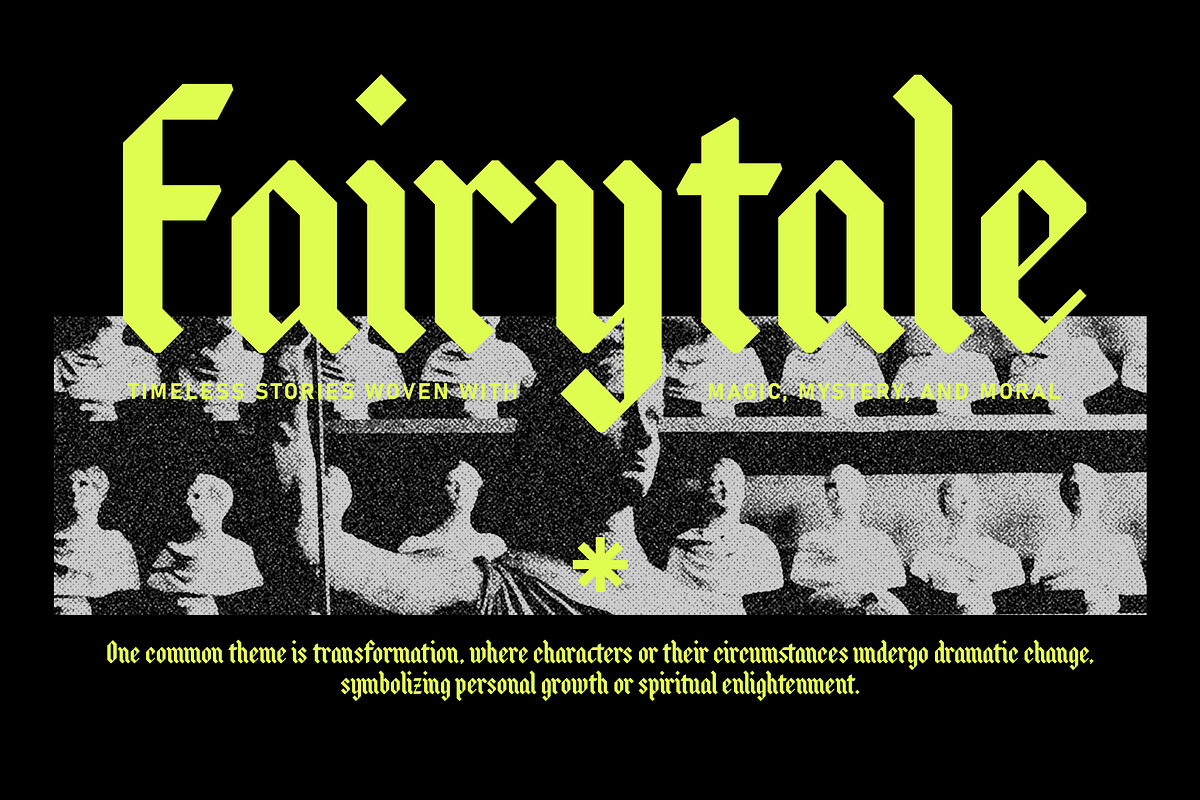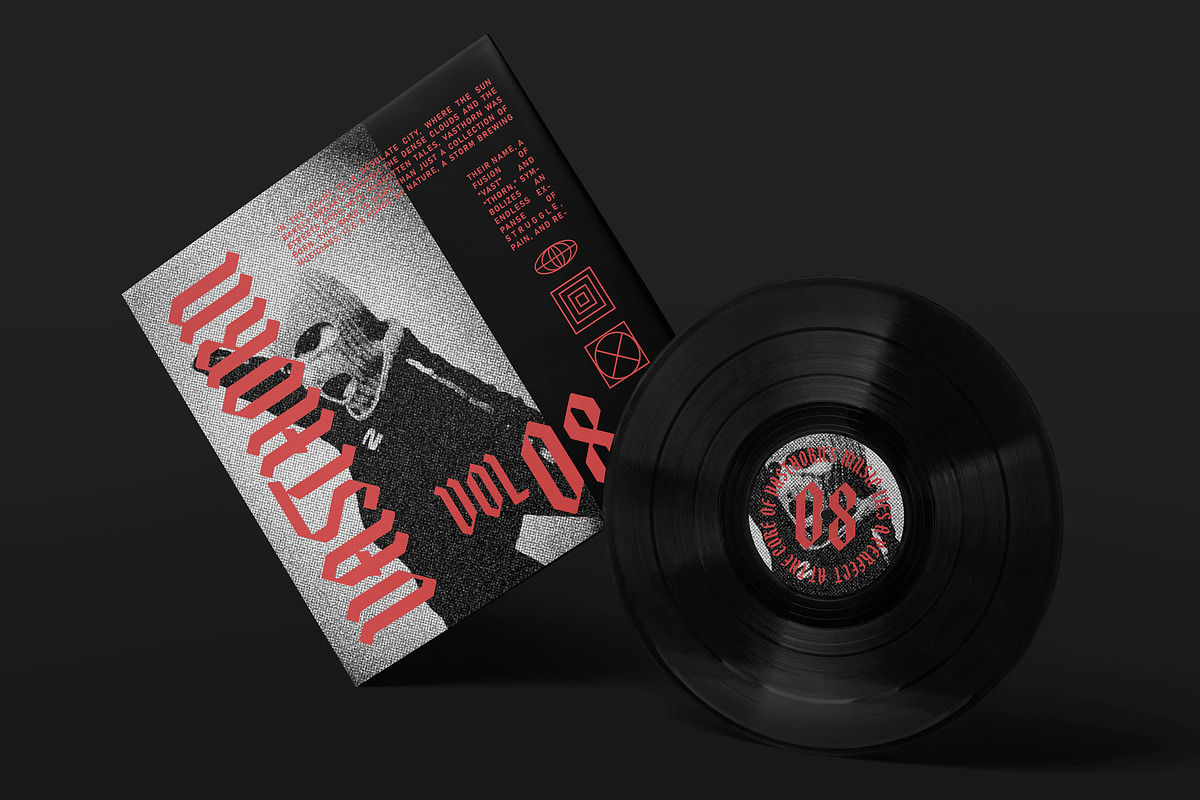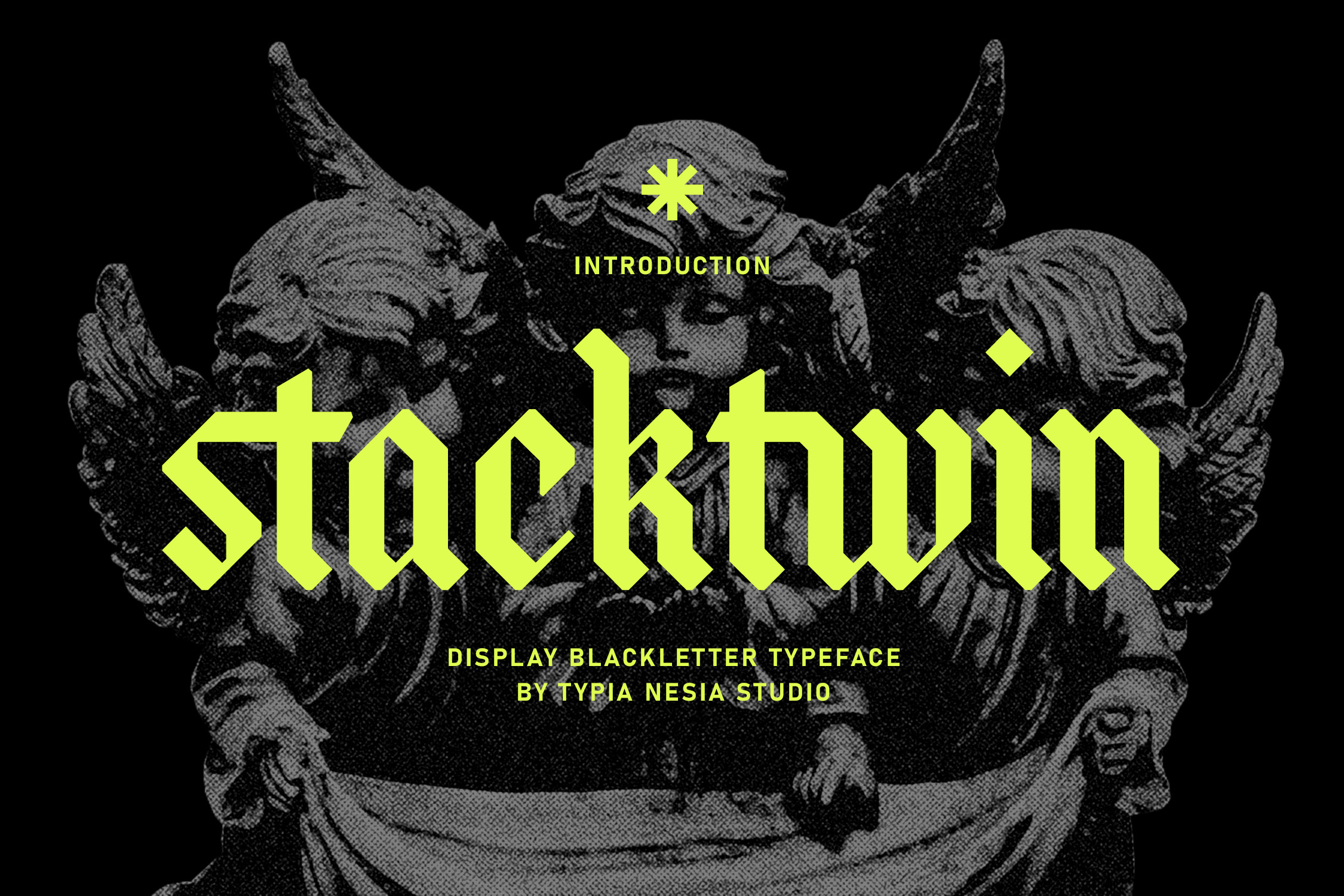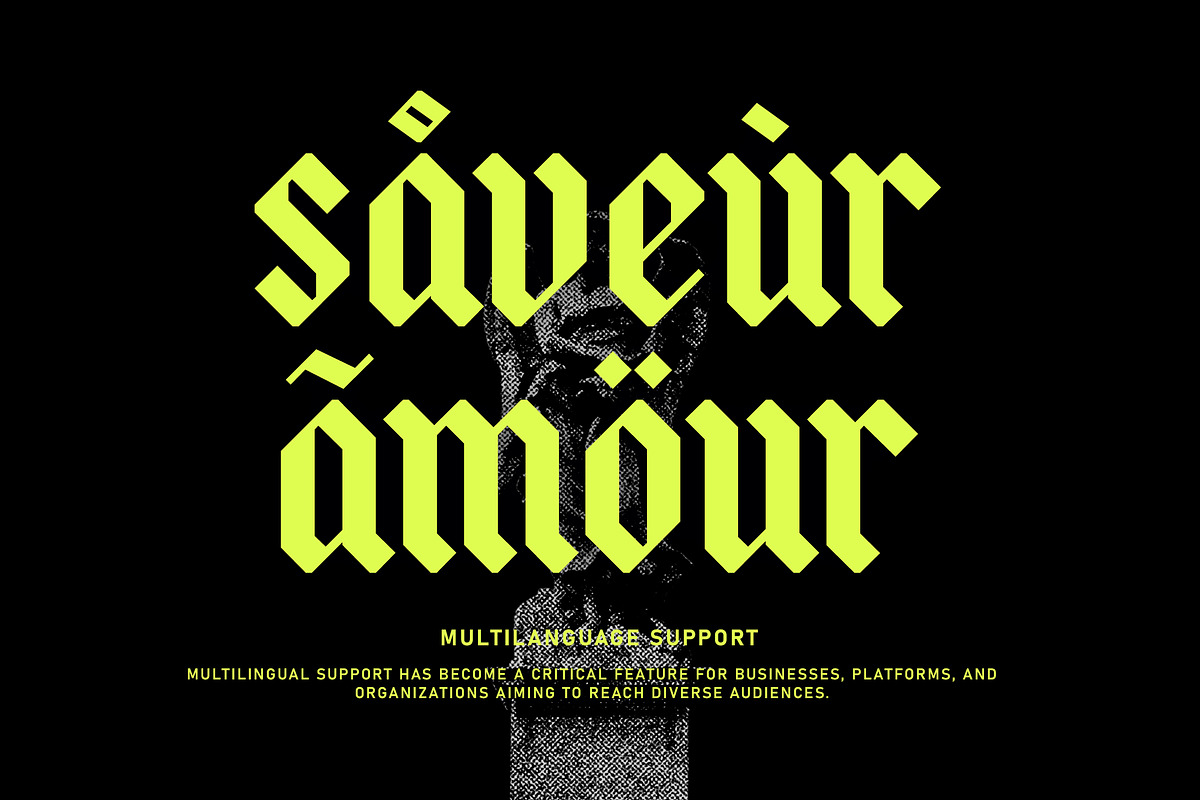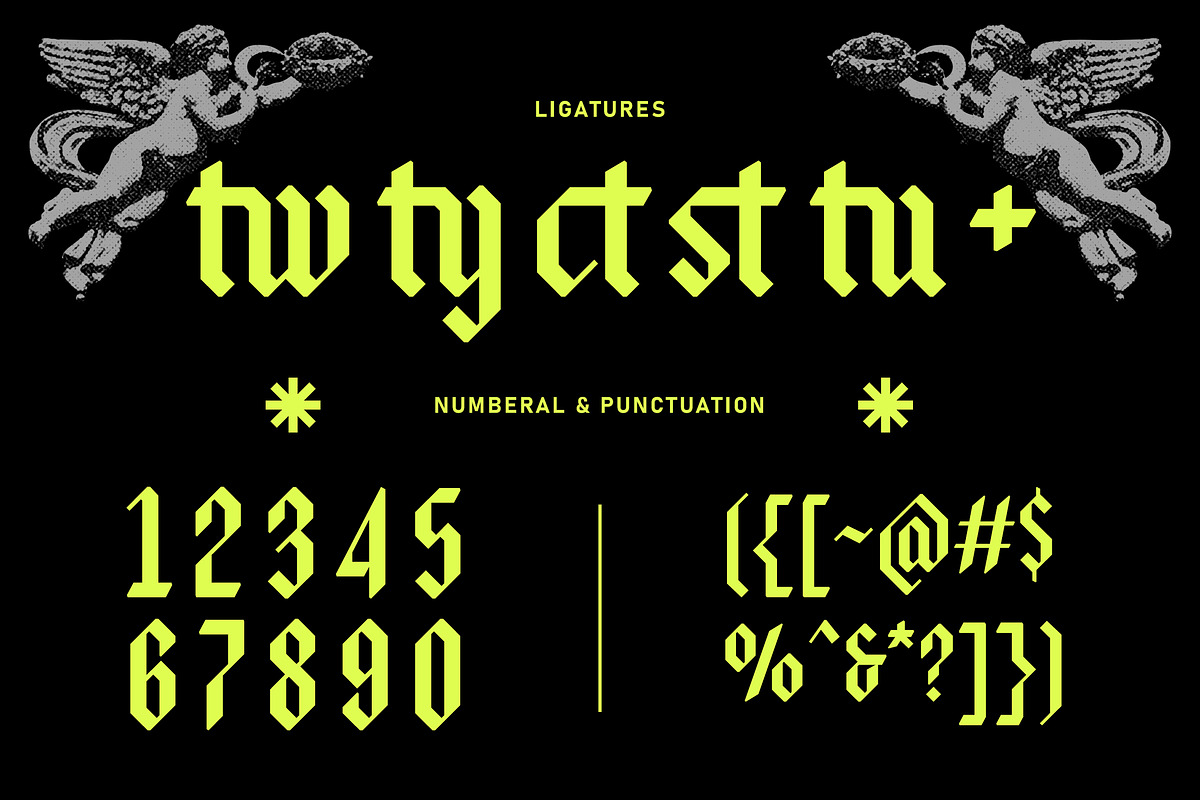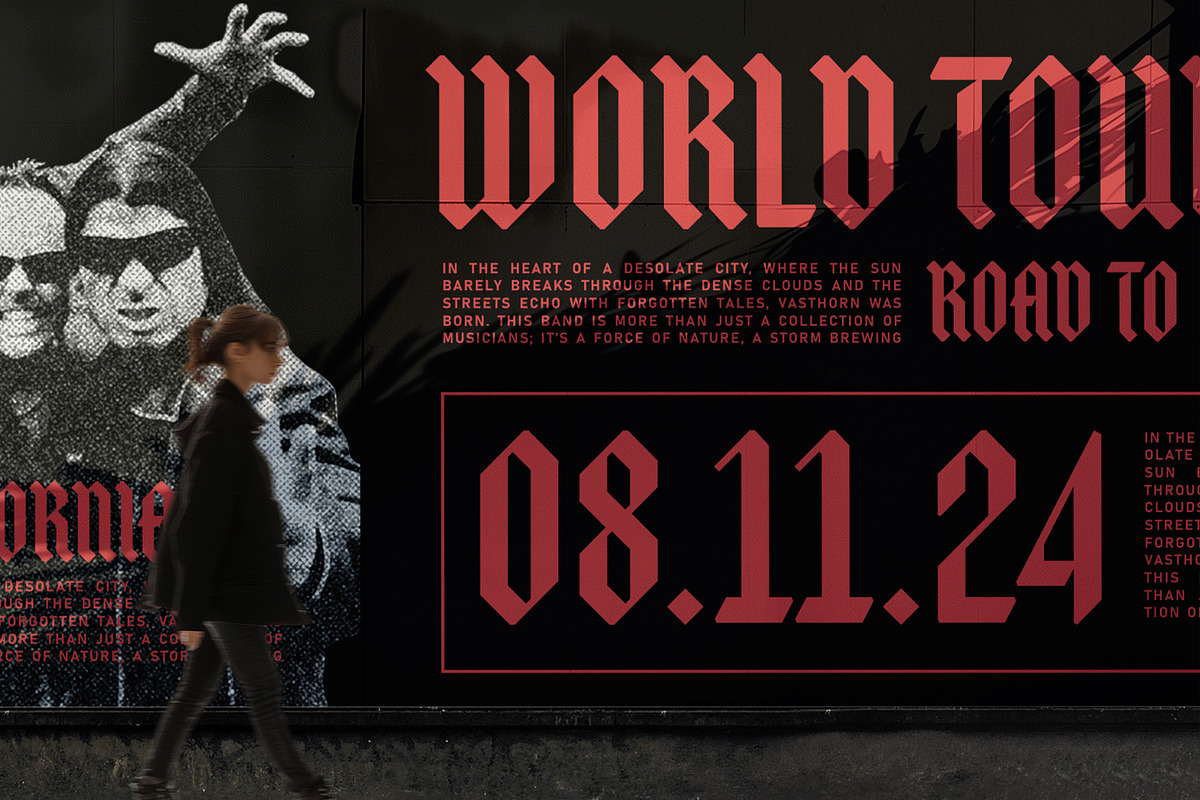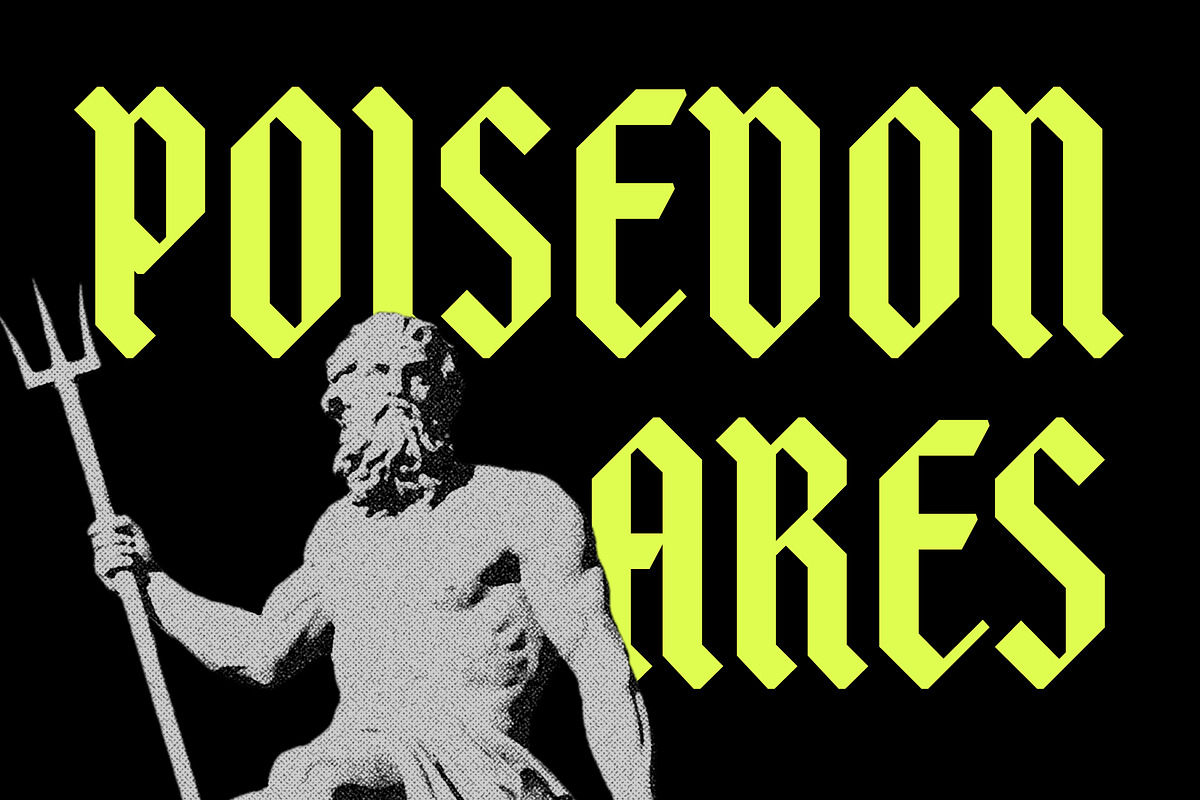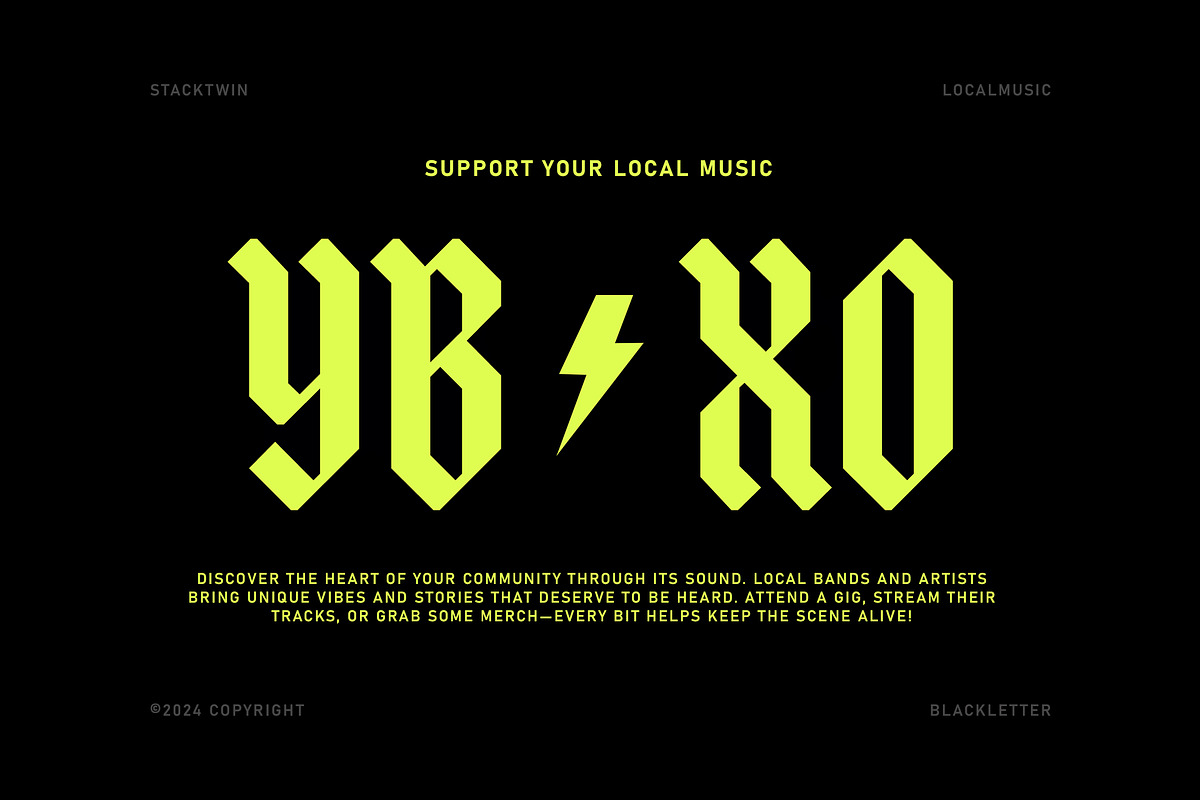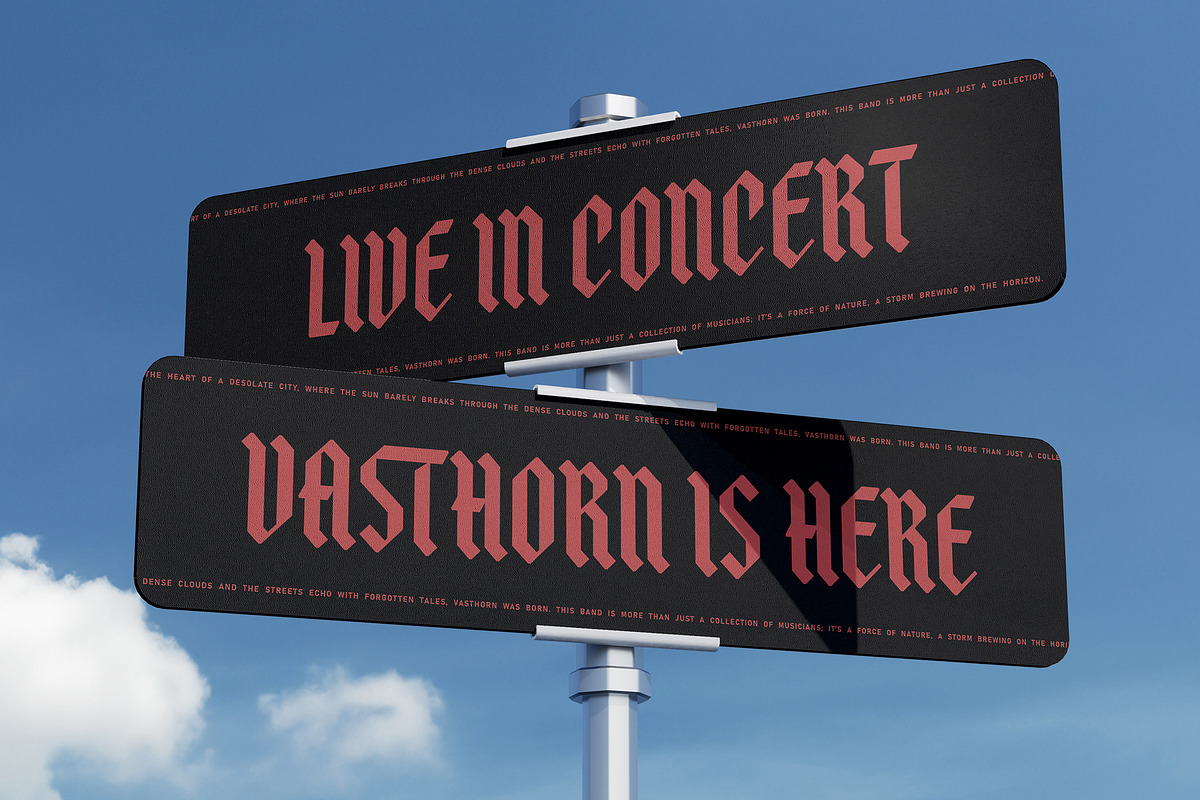
Stackwin - Gothic Blackletter Font
Stackwin - Display Gothic Blackletter Typeface - Modern Bold Decorative Font
Stackwin is a Display Blackletter Typeface that is gothic blackletter with a bold, modern edge. It is designed to command attention and emit an aura of mystery, power, and sophistication. Ideal for branding, logos, apparel designs, album covers, tattoos, packaging, posters, event invitations, headlines, and editorial layouts that require a bold blackletter and dramatic gothic aesthetic. Its striking design makes it a great choice for both print and digital media. Comes with comprehensive character set including uppercase, lowercase, punctuation, numerals, alternates, and ligatures. Multilingual support ensures accessibility for global projects. The ligatures and alternates add a unique touch to your designs. Crafted by our expert designers with an understanding of traditional blackletter art and modern design trends, Stackwin stands out with its impeccable details and excellent legibility, making it suitable for versatile and professional use.